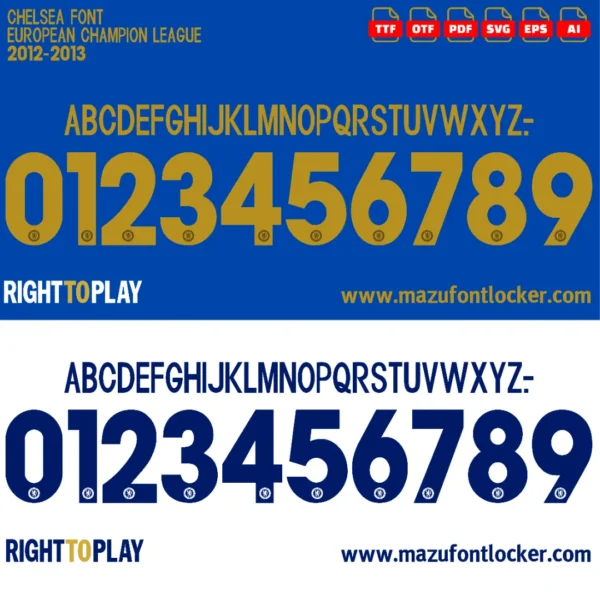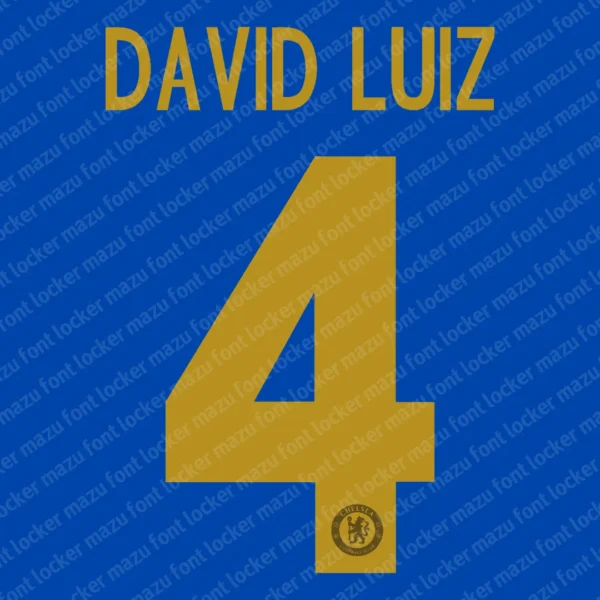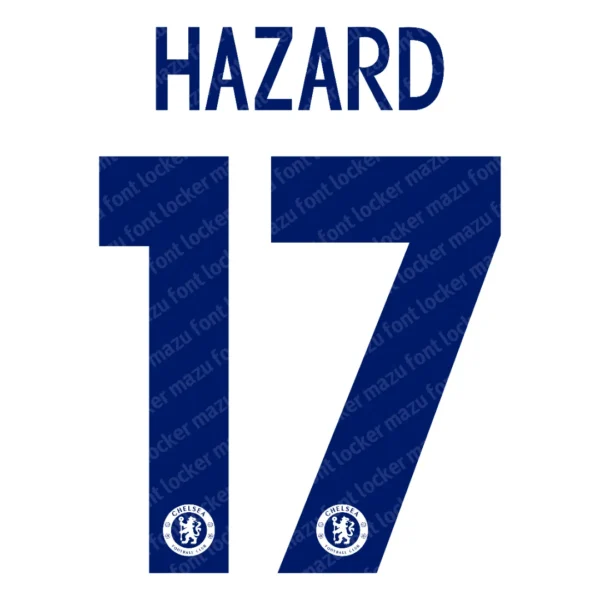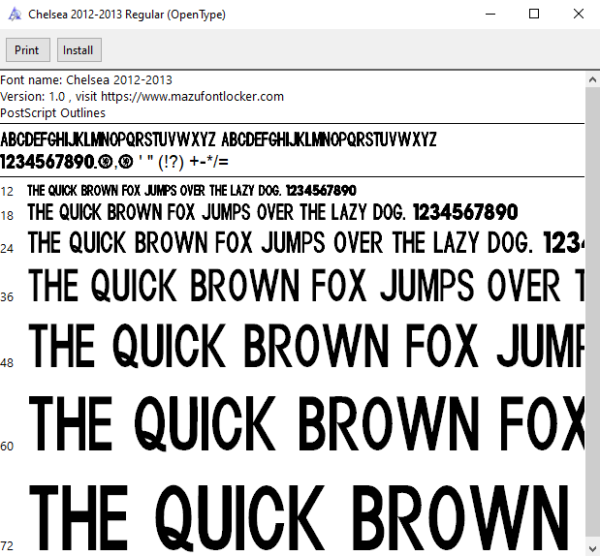
Chelsea 2012-2013 Font Vector – Stunning Stamford Bridge Glory
This premium font faithfully recreates the official match lettering worn by Chelsea during one of the club’s most memorable seasons — delivering authentic Stamford Bridge identity, fearless London spirit, elite championship heritage, tactical excellence, unwavering resilience, world-class ambition, and the unmistakable royal blue pride that established the Blues among Europe’s footballing elite.
Chelsea 2012-2013 Font Vector – Powerful Blues Champions Typeface
The Chelsea 2012-2013 Font Vector is a premium typeface that accurately recreates the official match lettering worn by Chelsea during the memorable 2012-2013 season. This high-quality vector font kit captures the distinctive Premier League shirt typography used by the Blues throughout a campaign that followed their historic UEFA Champions League triumph and featured domestic and European competition under new manager Rafael Benítez.
Designed for professional designers, football enthusiasts, and loyal Chelsea supporters, the Chelsea 2012-2013 Font Vector delivers exceptional authenticity for creating realistic jersey mockups, football merchandise, social media graphics, match posters, and custom fan artwork. It perfectly complements Chelsea’s iconic royal blue identity that has become one of the most recognizable looks in world football.
Why Choose Chelsea 2012-2013 Font Vector
This font stands out thanks to its precise vector construction and authentic match-day styling. Every character has been carefully recreated to match the official shirt lettering worn throughout the 2012-2013 season. Whether you’re producing classic kit templates or creating eye-catching football content, the Chelsea 2012-2013 Font Vector provides a genuine professional appearance.
The lettering featured in the Chelsea 2012-2013 Font Vector combines clean geometric forms with bold modern proportions. The result is a highly readable and professional design that reflects the strength, prestige, and winning tradition of one of England’s most successful football clubs.
The numerals feature balanced curves, sharp edges, and excellent spacing for maximum readability. Built entirely as scalable vectors, every number remains crisp for jersey customization, digital graphics, posters, and large-format printing.
- Complete uppercase A–Z alphabet and numbers 0–9 in authentic Chelsea 2012-2013 style
- Includes authentic league-style number detailing for realistic jersey customization
Chelsea 2012-2013 Season
The 2012-2013 season was another memorable chapter in Chelsea’s modern history. The Blues competed in the Premier League, FA Cup, League Cup, UEFA Champions League, FIFA Club World Cup, UEFA Super Cup, and UEFA Europa League. Chelsea finished the campaign by lifting the UEFA Europa League trophy, becoming the first club to simultaneously hold both the Champions League and Europa League titles during the transition between competitions.
Featuring world-class players, exciting attacking football, and memorable European nights at Stamford Bridge, Chelsea continued to strengthen their reputation as one of Europe’s elite clubs. The distinctive match lettering from the 2012-2013 season remains a favorite among collectors, football shirt enthusiasts, and designers recreating classic Premier League kits.